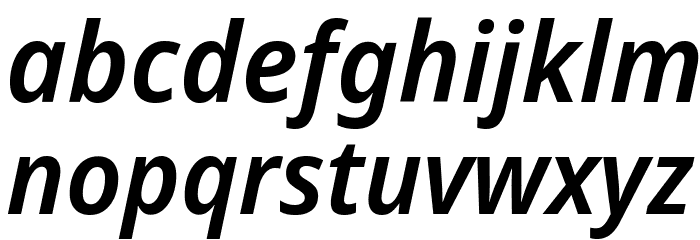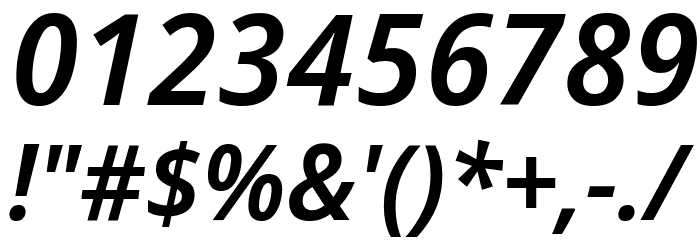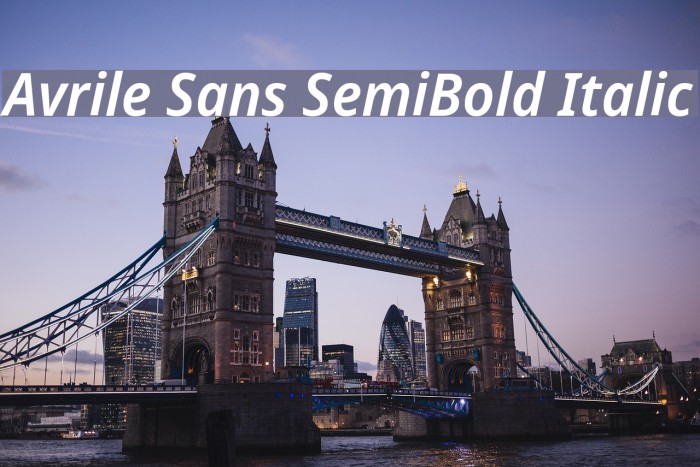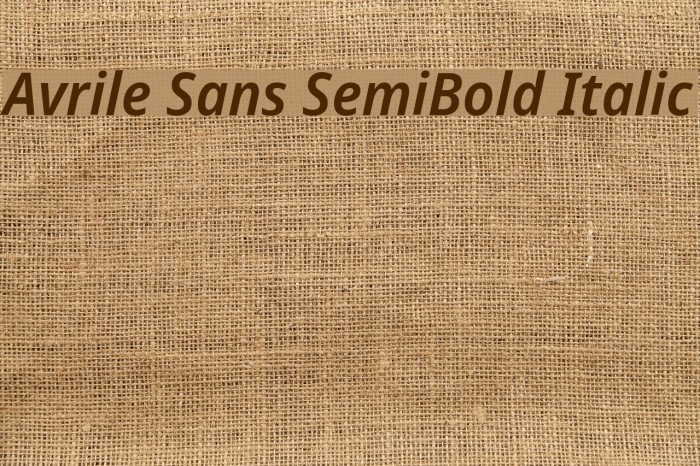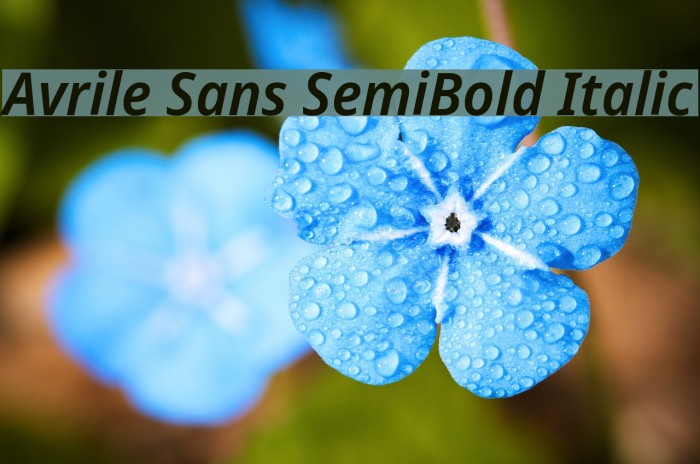
Avrile Sans SemiBold Italic Font
This font features a clean and modern sans-serif design with a semi-bold weight, providing a strong yet approachable appearance. The italic style adds a dynamic and forward-leaning character, making it suitable for conveying movement or emphasis. The letterforms are well-balanced with smooth curves and straight lines, ensuring readability across various sizes. The numerals and special characters maintain the same stylistic consistency, offering versatility for different applications.
A modern sans-serif font with semi-bold weight and italic style, offering readability and dynamic appeal.
- Proposed Projects: Ideal for branding, advertising, and editorial design where a modern and dynamic look is desired. Suitable for headlines, posters, and digital content.
- Use Case: Headlines, Logos, Digital content